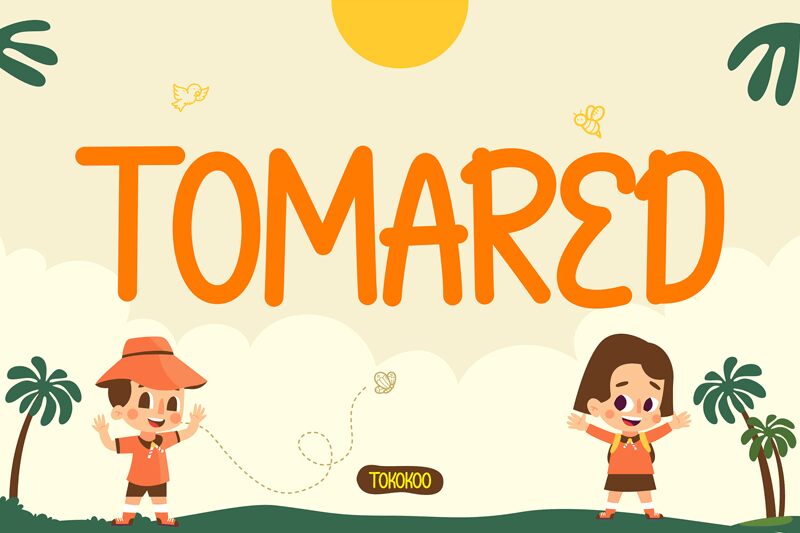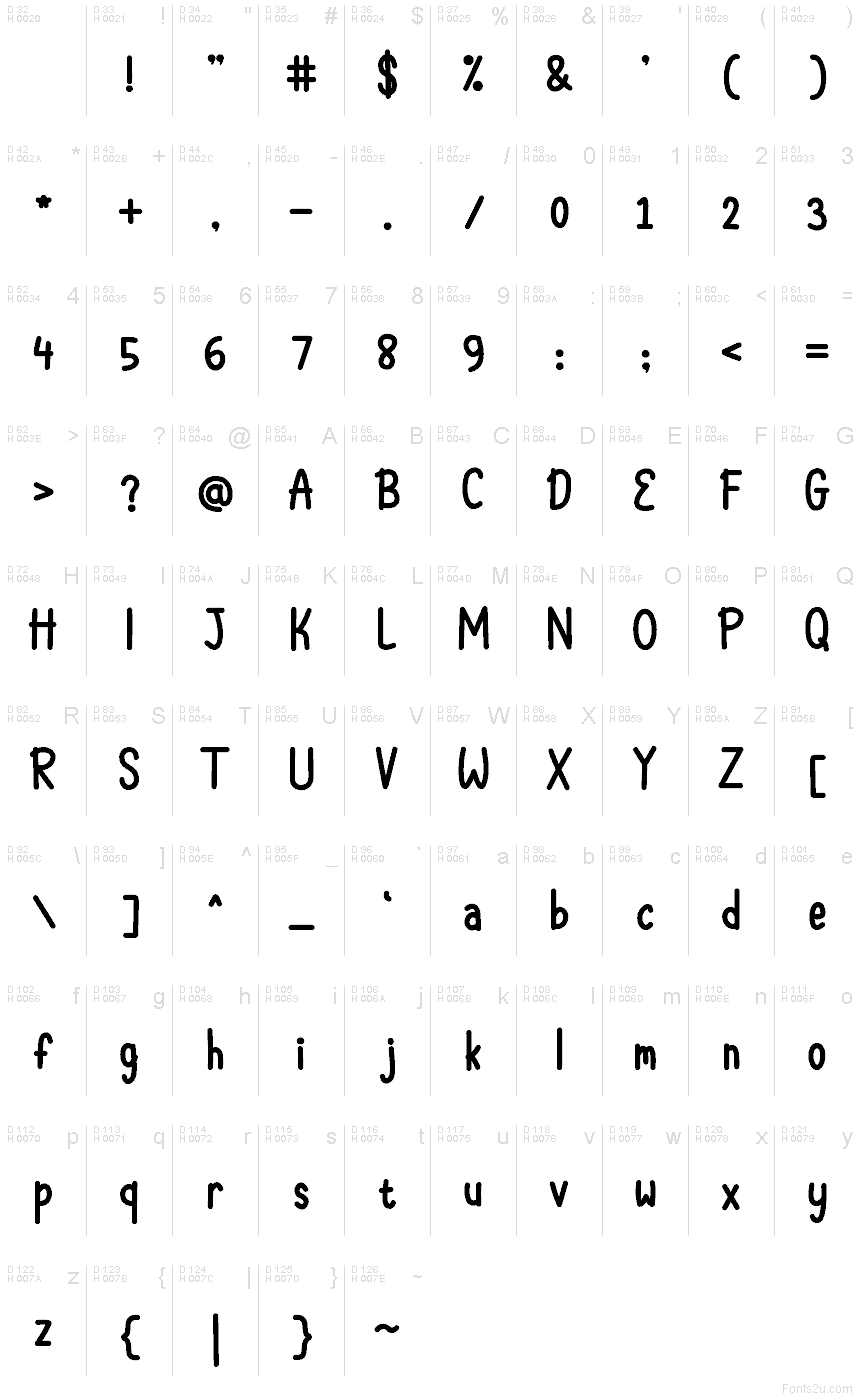
Tomared font by Tokokoo Studio is a free handwritten typeface with a bold, inky charm that feels like it was drawn with a fat marker on a fresh sheet of paper. Its tall, rounded letters have a slightly bouncy rhythm, giving words a friendly, approachable energy without slipping into chaos. The solid strokes and soft corners make it easy to read while still looking casual and fun.
Using Tomared, you’ll get a lively look that shines on kids’ products, snack packaging, craft labels, social media graphics, playful logos, and sticker designs. This free font works beautifully when set large, where its chunky shapes and smooth curves can really breathe. Try pairing Tomared with a clean geometric sans for small supporting text to keep the overall design bright, legible, and upbeat.